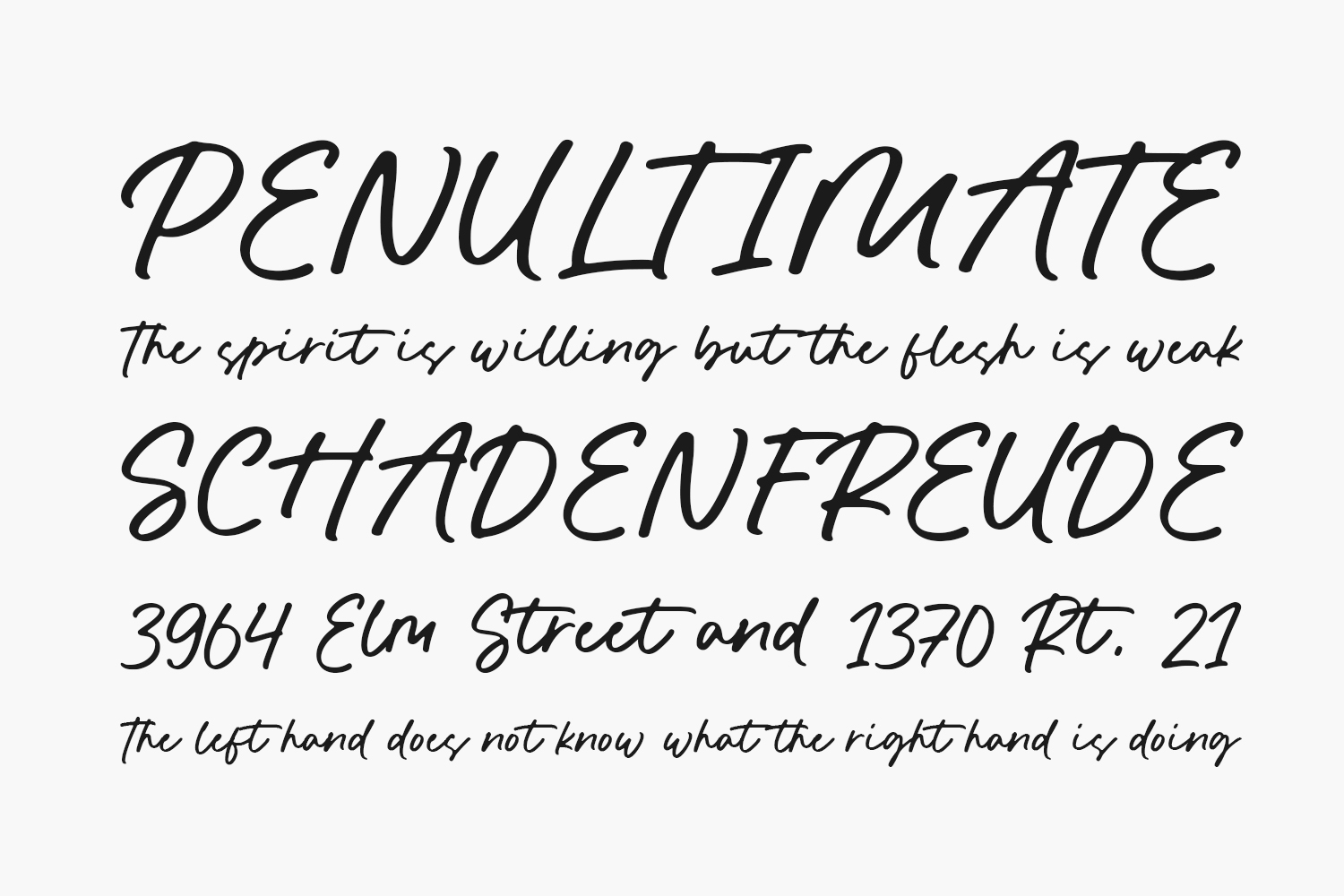
Discover Humble Monster Free Font, an authentically original and contemporary calligraphy script font. With its casual charm, it adds a distinctive touch to all your design concepts, elevating each creation with effortless style. Download the font for free if you need it for personal use or purchase the full version for commercial use.
Designed by Letterative Studio